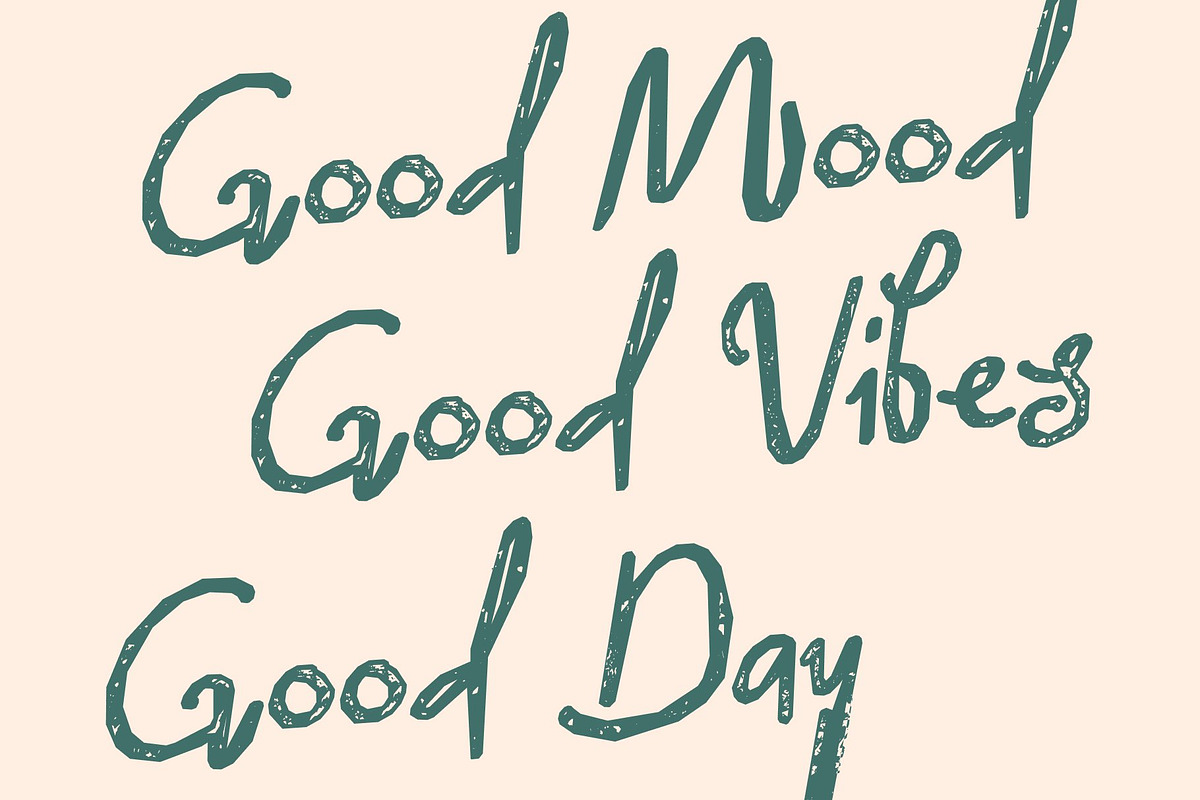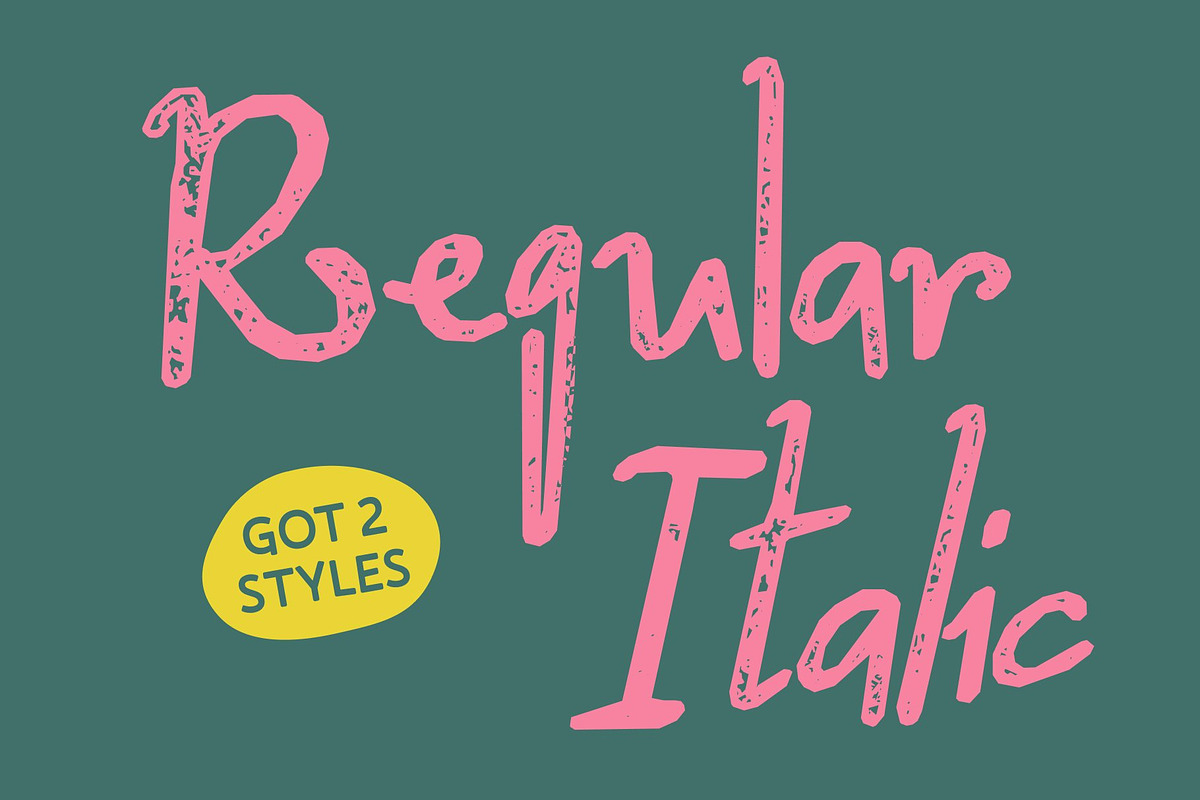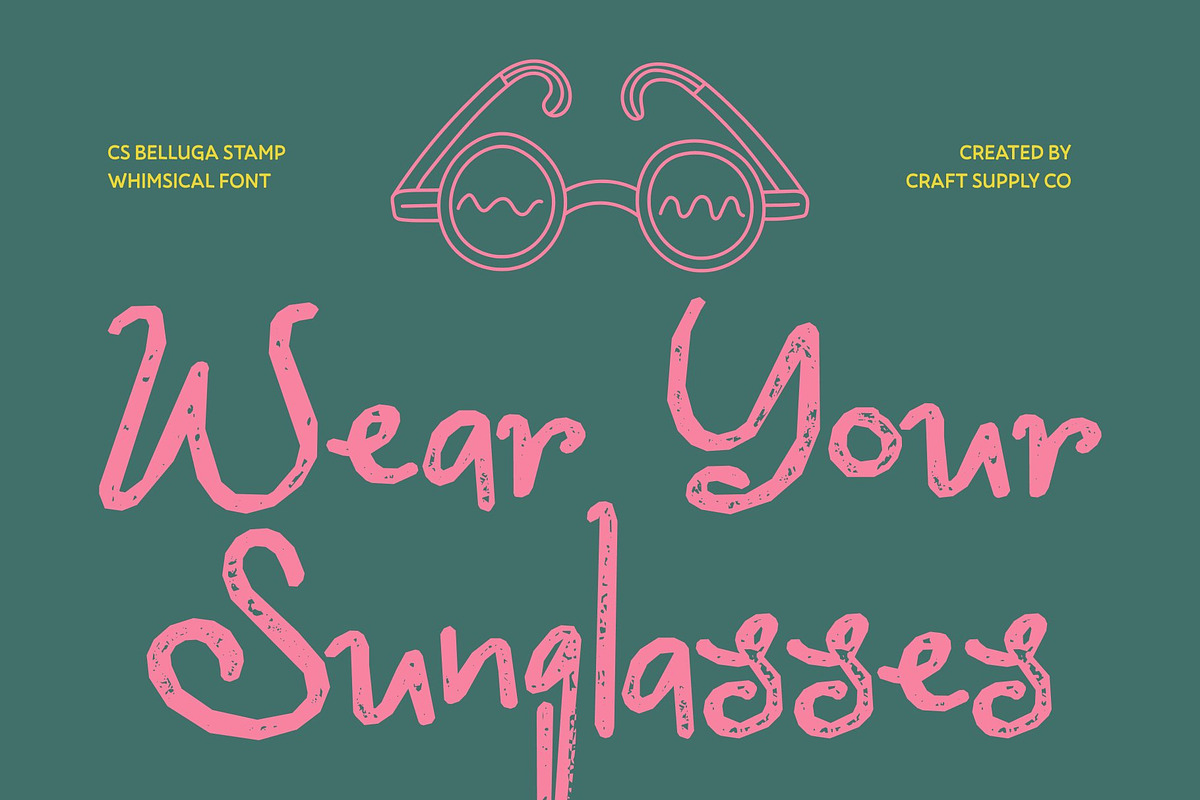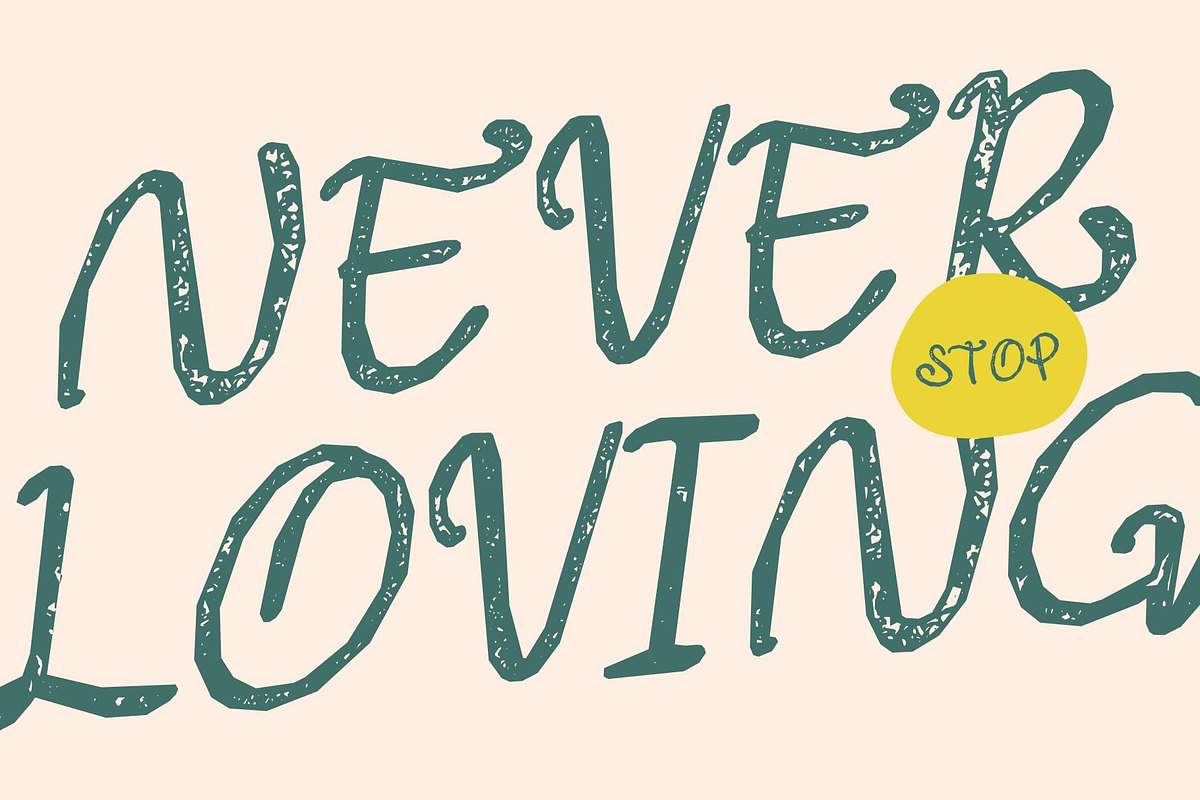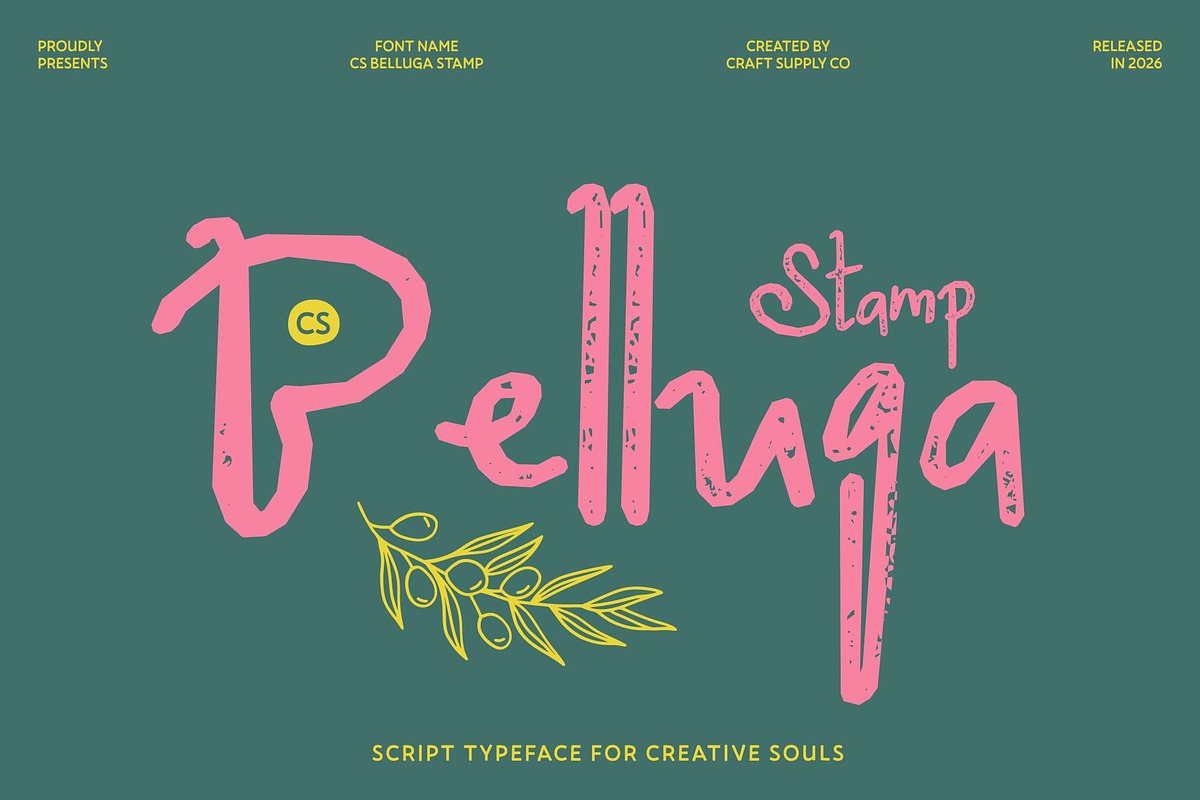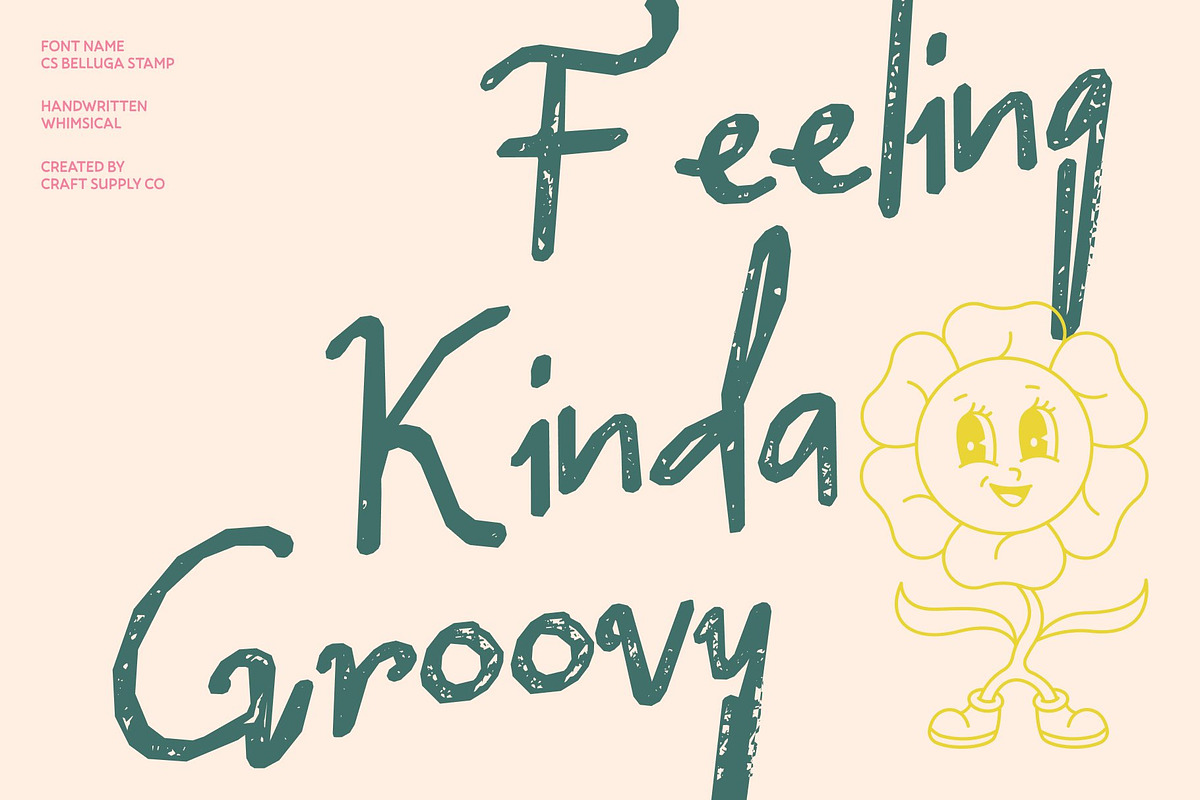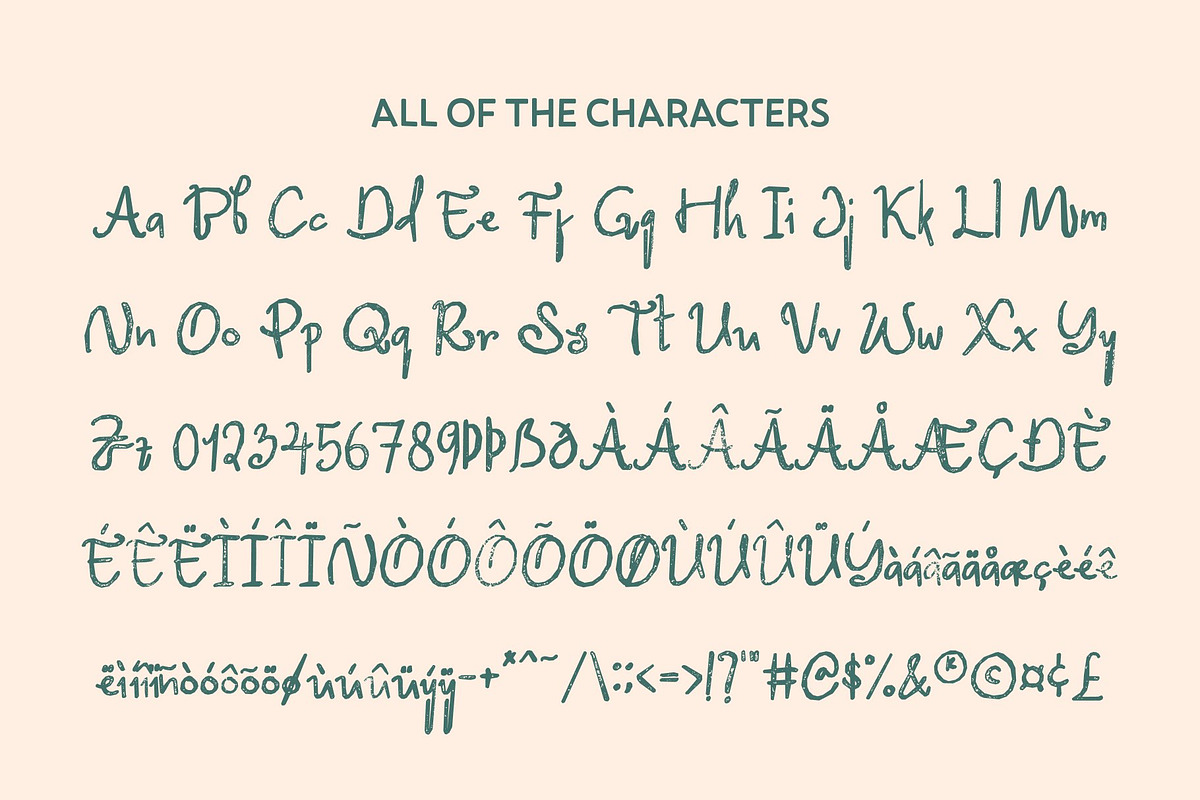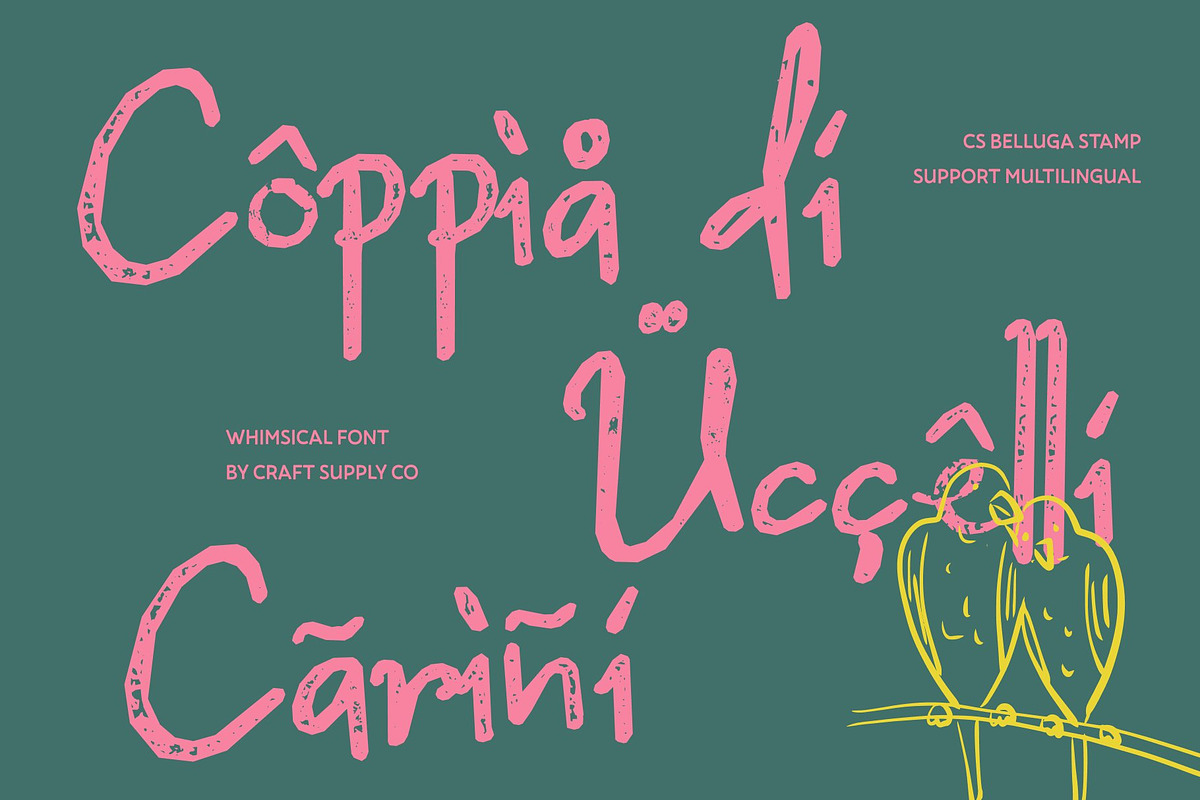
CS Belluga Stamp
CS Belluga Stamp – Whimsical Beauty with a Playful Heart
Graceful Whimsy with a Stamped Touch This is a beautiful handwritten whimsy font enhanced with a subtle stamped texture. Its flowing curves and imaginative forms retain their joyful movement, while gentle ink variations and softly distressed edges introduce a handcrafted, print-inspired warmth. The result is a typeface that feels romantic, expressive, and delightfully personal.
Playful Curves with Textured Expression Every stroke dances with personality, now enriched by a tactile stamped finish that adds depth and authenticity. The gentle swirls and lively rhythm create a handwritten flow that feels both spontaneous and refined. This subtle texture enhances the sense of charm without overpowering its graceful structure.
Imaginative Character for Creative Designs This font stands out through its whimsical letterforms and organic motion. The stamped effect brings a nostalgic nuance, reminiscent of handcrafted invitations and artisan prints, making it perfect for projects that seek beauty with character such as love letters, wedding invitations, and artistic branding.
Perfect for Romantic and Cheerful Creations From wedding stationery and party invitations to heartfelt quotes and beauty campaigns, infuses every design with warmth and joy. Its blend of elegance, playfulness, and vintage-stamped texture ensures each word feels alive radiating charm, creativity, and expressive delight.